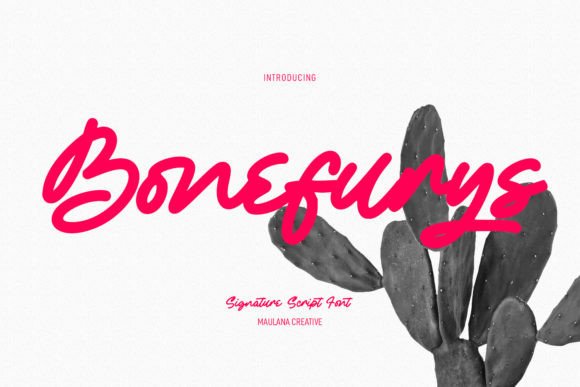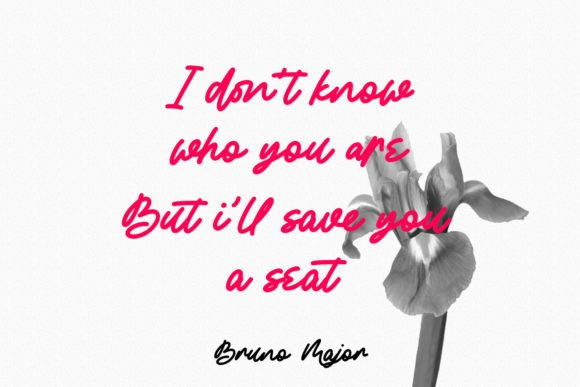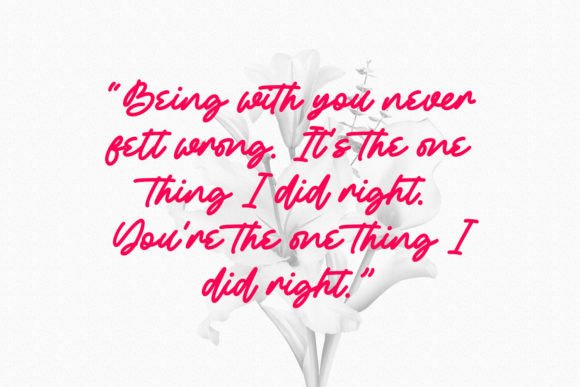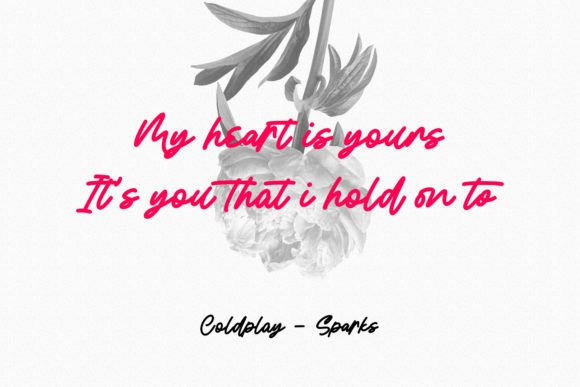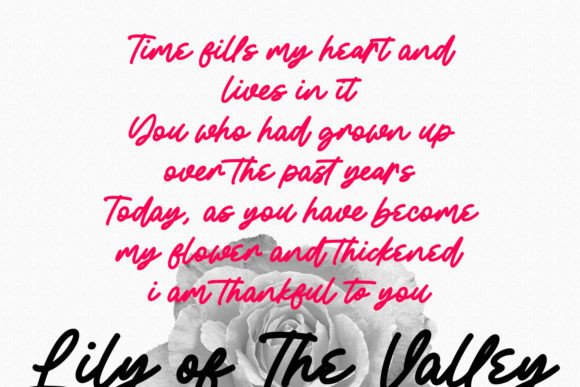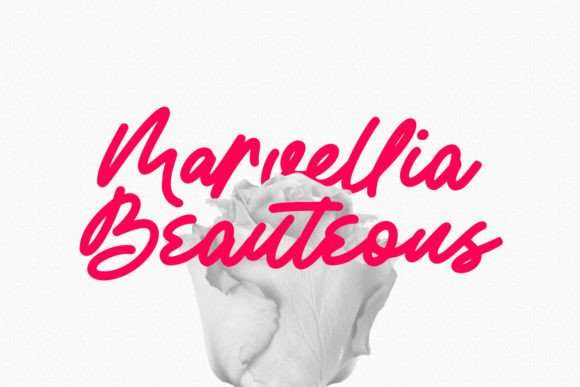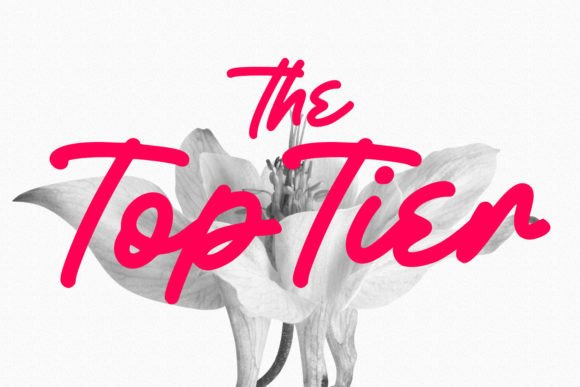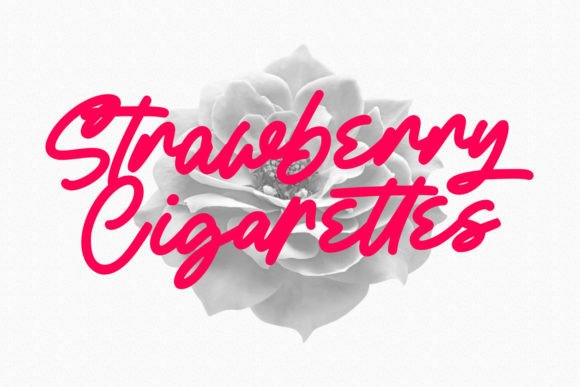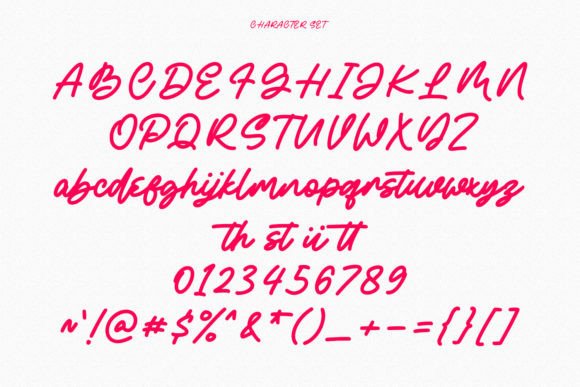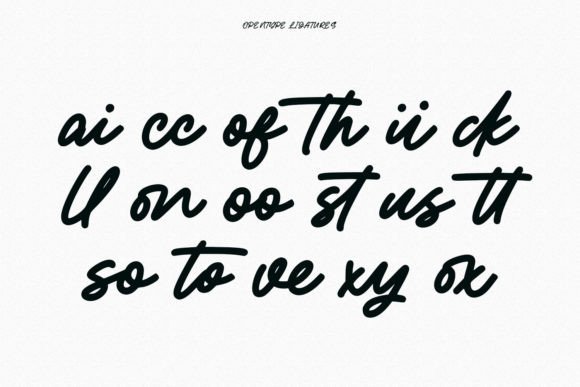
Bonefurys Font
About Bonefurys Font
Bonefurys is a dynamic and modern casual script font that brings a fresh and playful energy to your design projects. With a medium mono-line stroke, this font strikes a perfect balance between being bold and approachable. Whether you are working on logo design, social media graphics, movie titles, books, or even long-form text, Bonefurys is a versatile choice that injects a sense of fun into your creative work.
One of the standout features of Bonefurys is its unique and captivating character. The letters have a distinct playfulness that adds a touch of personality to your text. This makes it an excellent option for projects where you want to convey a sense of modernity and informality while maintaining readability.
Logo design becomes an exciting endeavor with Bonefurys as it allows you to create memorable and engaging brand identities. The font’s casual script style is perfect for capturing attention without sacrificing professionalism. Social media posts come alive with Bonefurys, bringing vibrancy to your captions and messages. Its modern aesthetic aligns well with contemporary design trends, making it a go-to choice for digital content creation.
In the realm of print media, Bonefurys stands out as a font that can handle both short and long text effortlessly. Whether you’re crafting book titles or designing the layout of a magazine, Bonefurys infuses a sense of dynamism into the text, keeping the reader engaged.
One of the strengths of Bonefurys is its ability to play well with other fonts. It serves as an excellent choice for secondary text when paired with sans or serif fonts. This versatility allows you to create visually interesting and well-balanced designs.
The application of Bonefurys extends beyond individual projects; it contributes to a contemporary design language that resonates with modern audiences. Its adaptability makes it suitable for a diverse range of industries, from creative endeavors to more professional settings.
In conclusion, Bonefurys is not just a font; it’s a design asset that empowers you to make stunning and engaging work. Whether you’re a designer working on diverse projects or a business looking to refresh its visual identity, Bonefurys is ready to add a touch of fun and modernity to your creations.